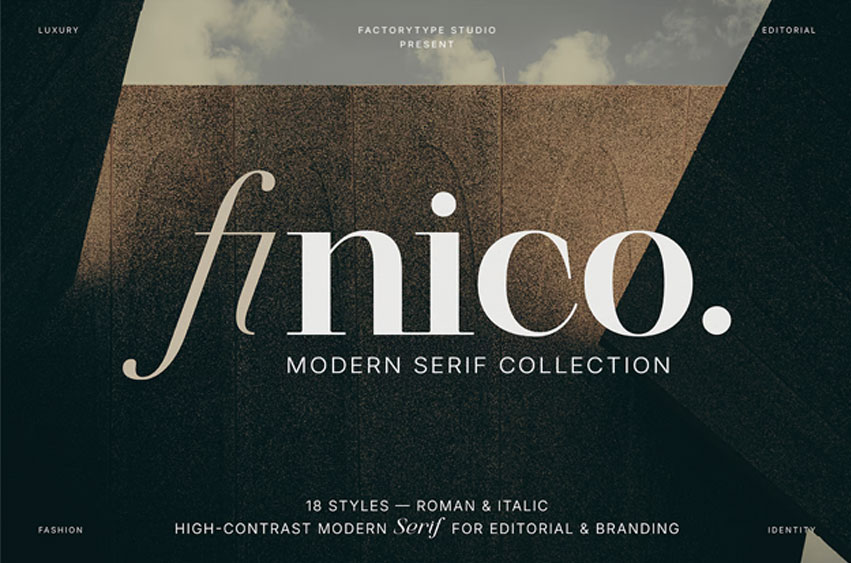
Finico Font
Finico Font is a modern high-contrast serif crafted to shine in any design setting. Built for impactful editorial moments, refined branding, and expressive headlines, Finico combines sculpted elegance with a contemporary, fashion-forward attitude.
With its graceful curves, crisp serifs, and beautifully refined italics, Finico brings a polished and confident character to your layouts. Perfect for magazine spreads, luxury logos, creative campaigns, or premium packaging, this mini family gives you just the right balance between sophistication and simplicity.
This bundle includes a curated 4-style set, offering the essential voices you need for clean modern typography: a delicate Light, a striking Bold, and their matching Italics for expressive contrast. Designed for creators who appreciate high-contrast forms and editorial clarity, Finico delivers a timeless yet modern typographic tone.
• Stylistic ligatures
A perfect serif companion for fashion, beauty, lifestyle, architecture, editorial design, and all things luxe. Thanks for looking, and I hope you enjoy using fiNico.